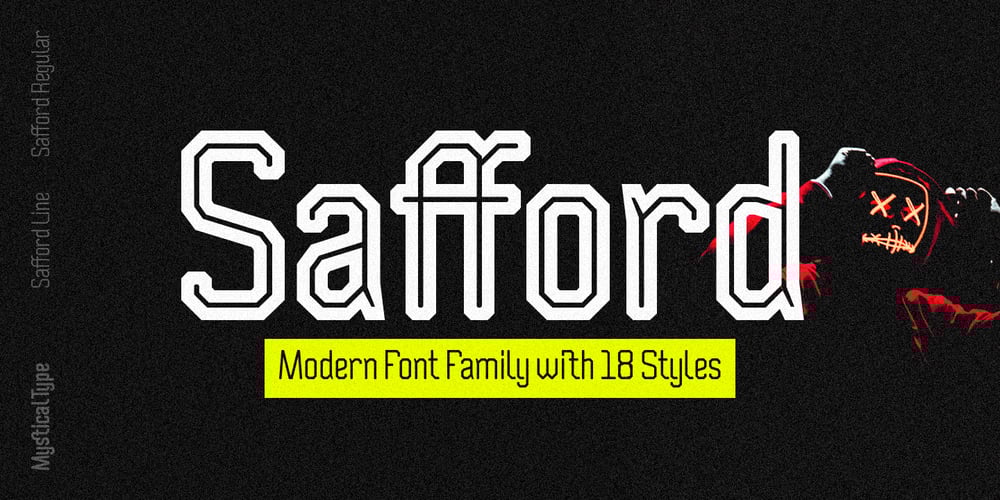
Safford
Safford font
Safford Font Family was designed by Candi Erwanto and published by MysticalType. Safford contains 18 styles and family package options. Safford is a family font with a sports style. I made it with a very mature calculation so as to produce the best visual view.This font is suitable for you to use for making flyers, advertisements, books, magazines, and others.Safford has 18 styles with different thickness sizes, each curve is dynamic and I will show you how serious I am in making it, you can see in the font presentation, how do I input designer values.Safford has 385 Glyphs with ligatures having 24.